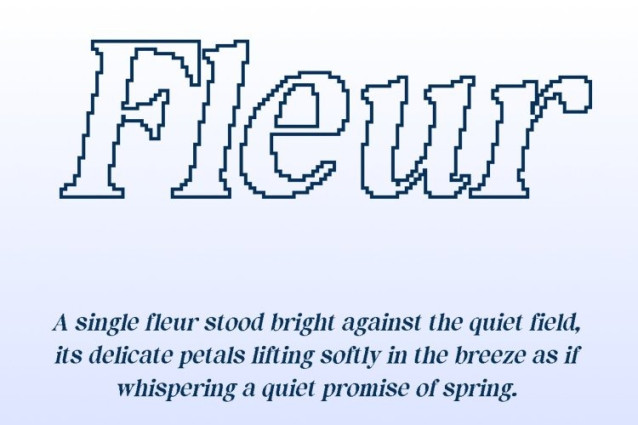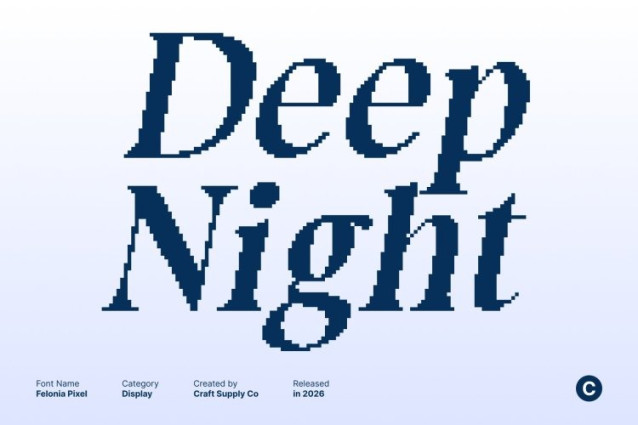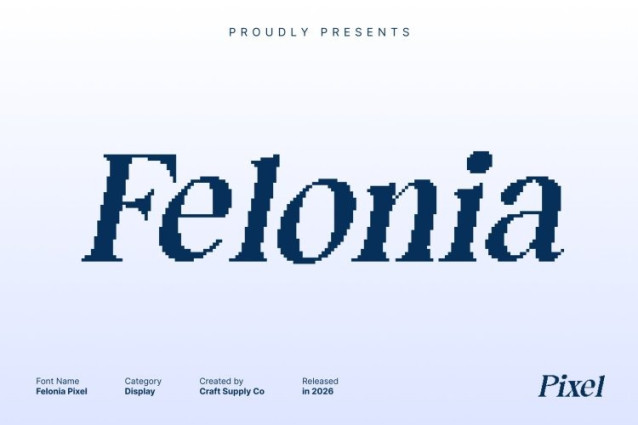
Felonia Pixel Font
Felonia Pixel Font This is an elegant serif font that blends classic sophistication with retro charm, enhanced by a distinctive pixel style. This fusion creates a timeless yet nostalgic look inspired by early digital screens and old-technology aesthetics, making the font instantly eye-catching and memorable.
Classic Elegance with Pixel Detail
Built on a refined classic serif structure, this font maintains elegance, balance, and strong visual authority. The pixel treatment introduces a retro-digital texture reminiscent of vintage computers and arcade displays, adding character without sacrificing clarity.
Retro Digital Expression
The combination of classic serif forms and pixel styling makes this font ideal for designs that embrace nostalgic technology with a modern approach. It works especially well for digital-themed projects, retro branding, experimental editorials, game visuals, and technology-inspired layouts.
A Distinctive Digital Statement
This font gives your designs a unique voice that bridges tradition and technology. With its elegant serif foundation and bold pixel personality, this font delivers sophistication, nostalgia, and digital impact perfect for creating standout visuals rooted in classic design and old-school tech culture.